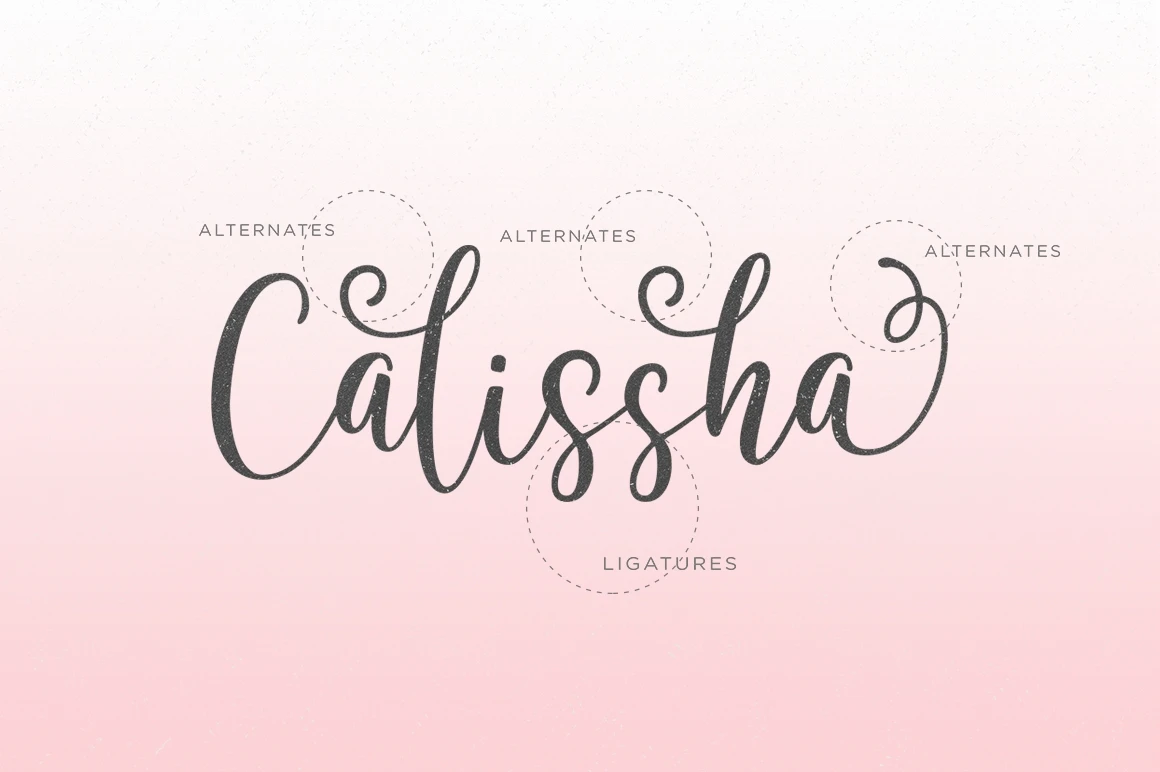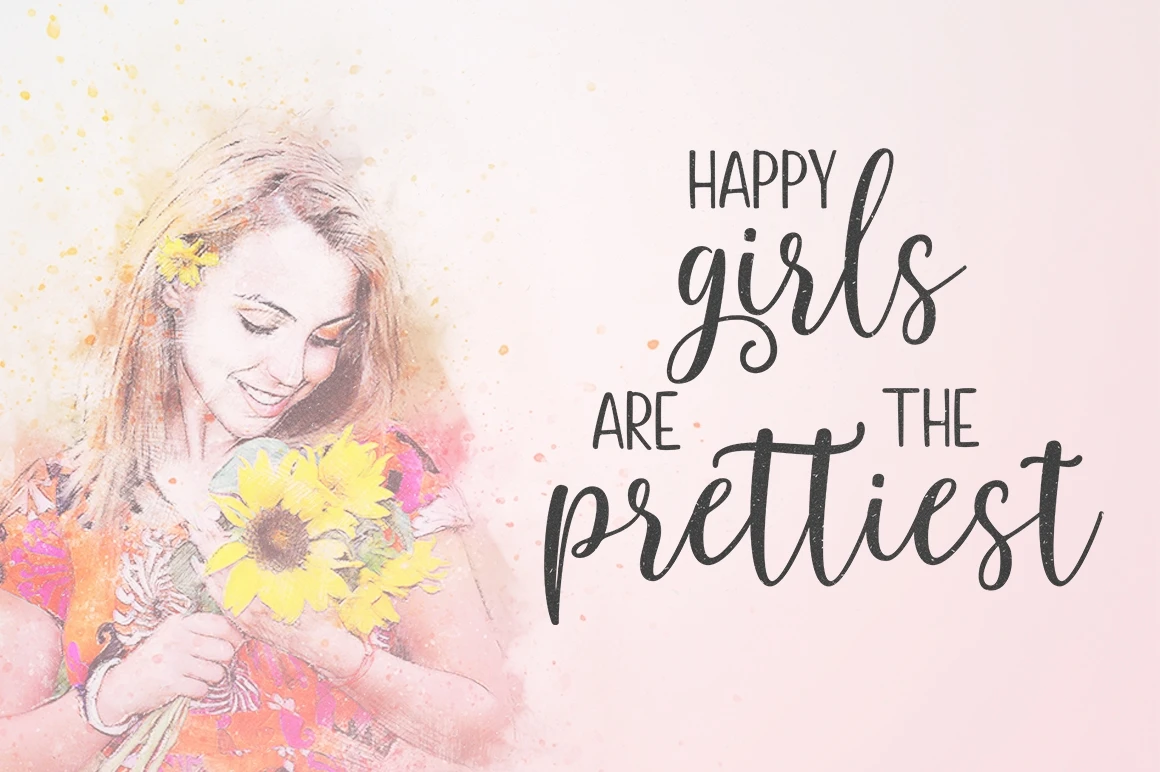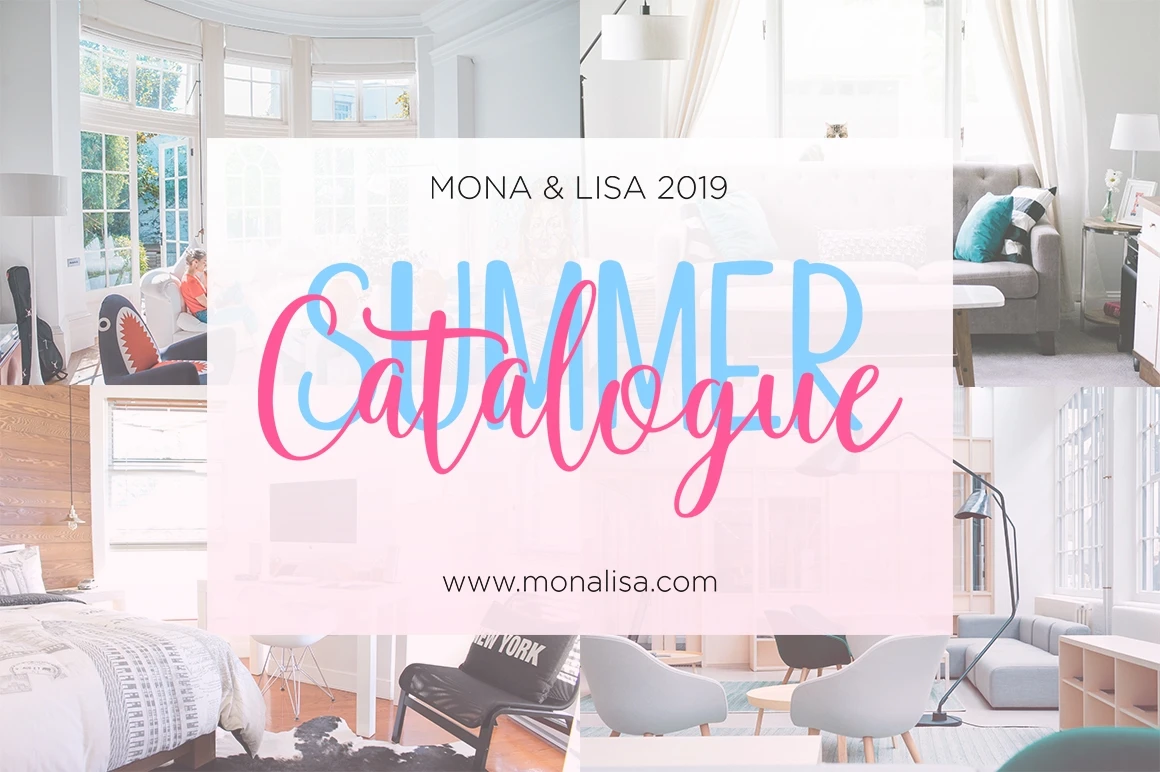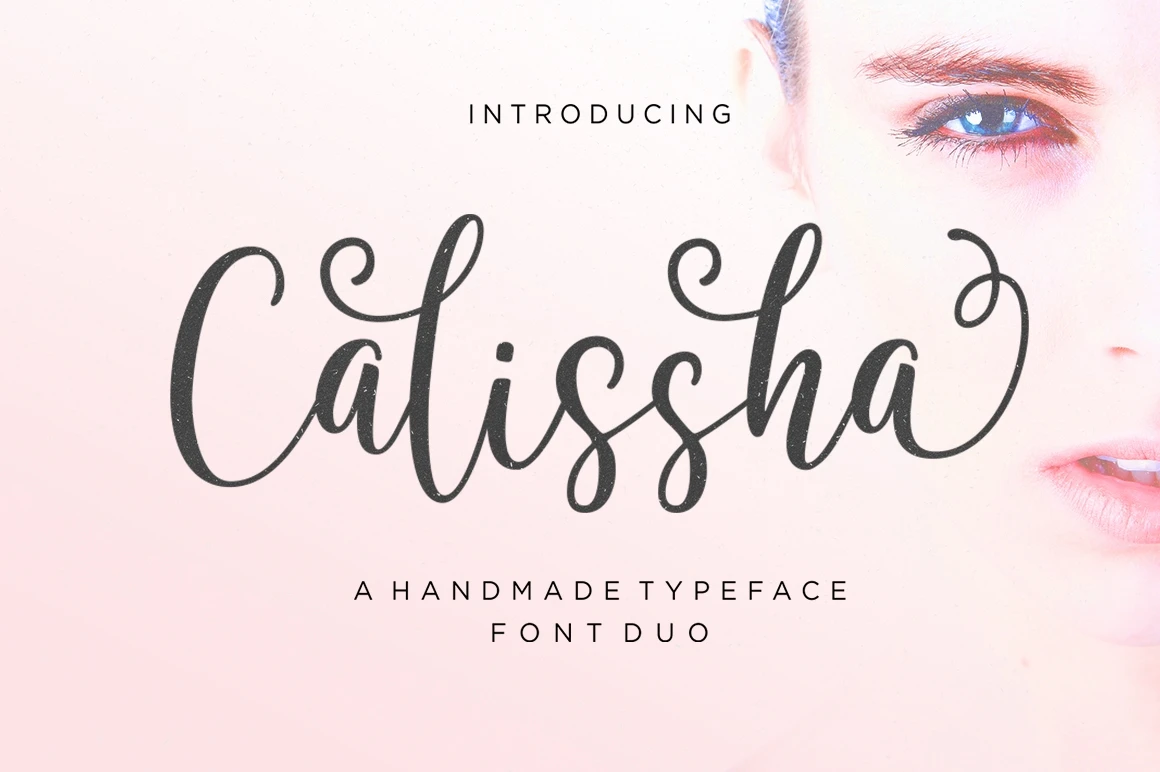
Calissha Font Duo is a handmade font created with a brush and ink, bold and irregular baseline. Contains a complete set of lowercase, uppercase, alternates, ligatures, punctuation, numbers, and multilingual support. And additional Calissha sans, working in harmony with Calissha script to create typography awesome creations. Get some inspiration from the preview above. Contains a complete set of lowercase, uppercase, ligatures, punctuation, numbers, and multilingual support.
Calissha Font Duo is perfect for use in watercolor design or lettering style bold hand, such as blog header, branding, t-shirt, weddings, social media, product design, stationery, advertising, apparel, cover books, business cards, greeting cards, branding, merchandise, invitations and handmade quotes and more.